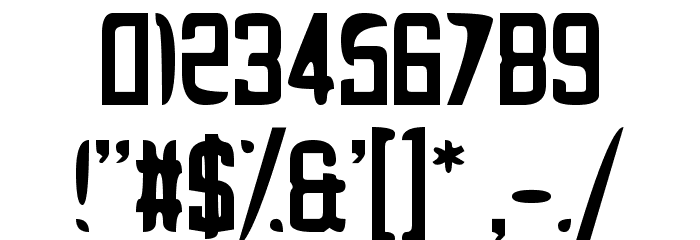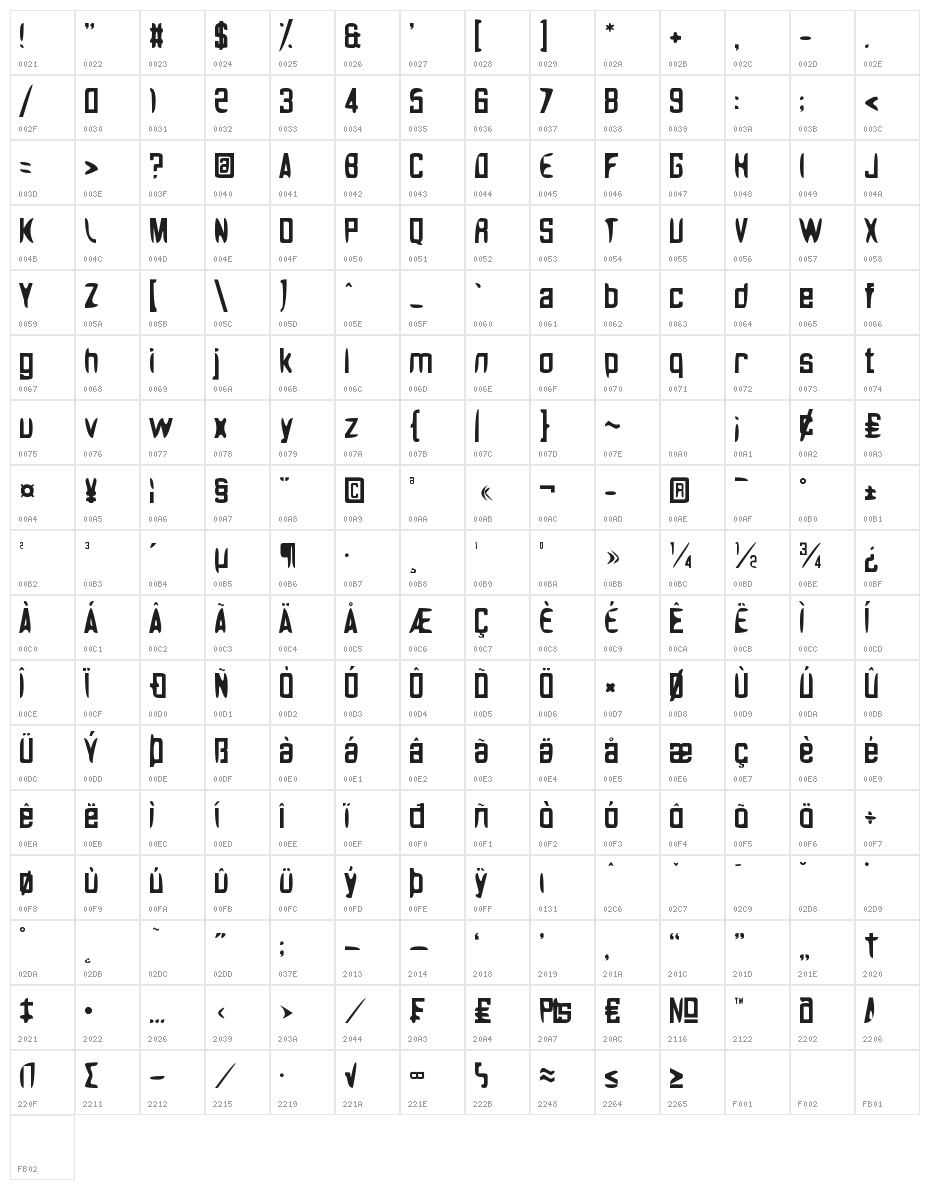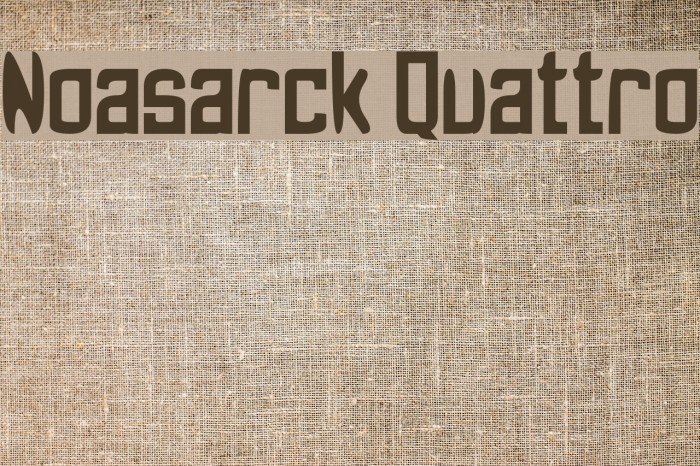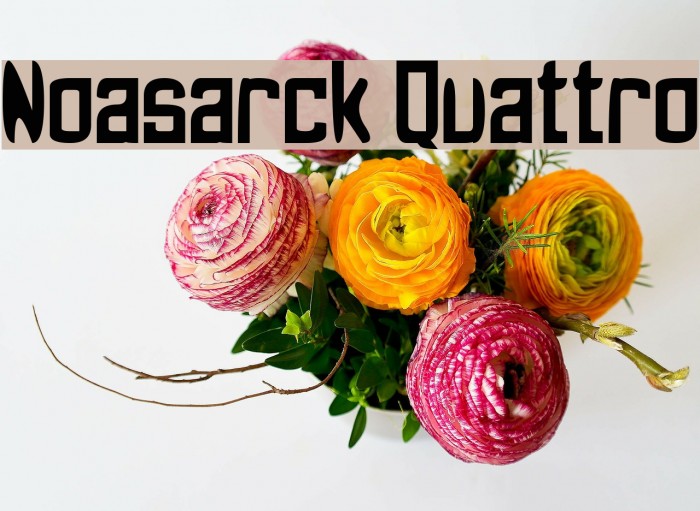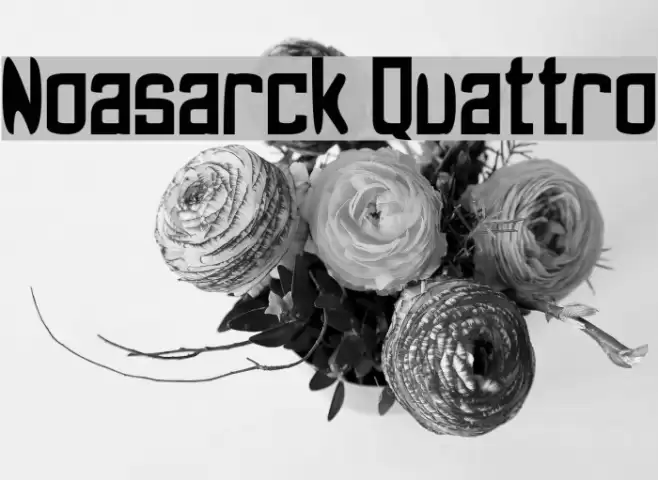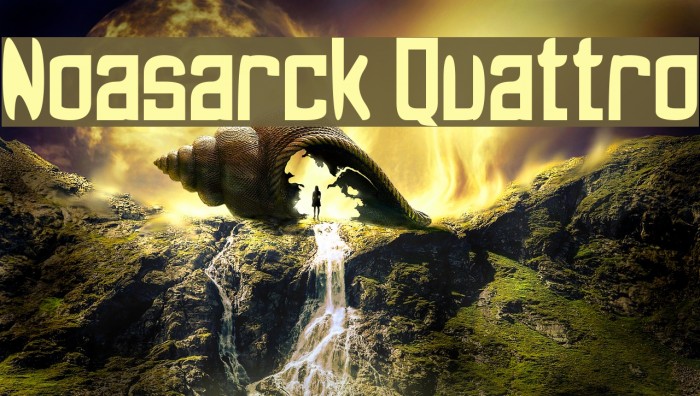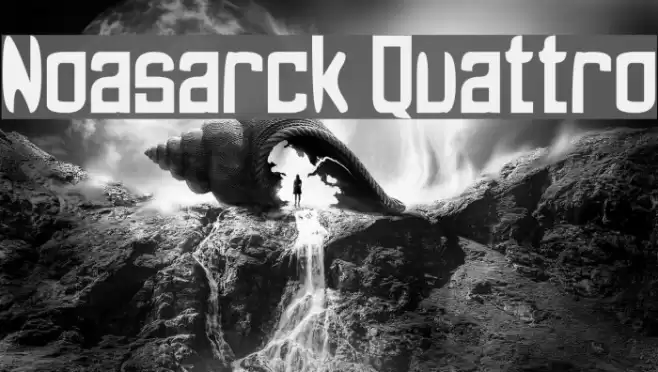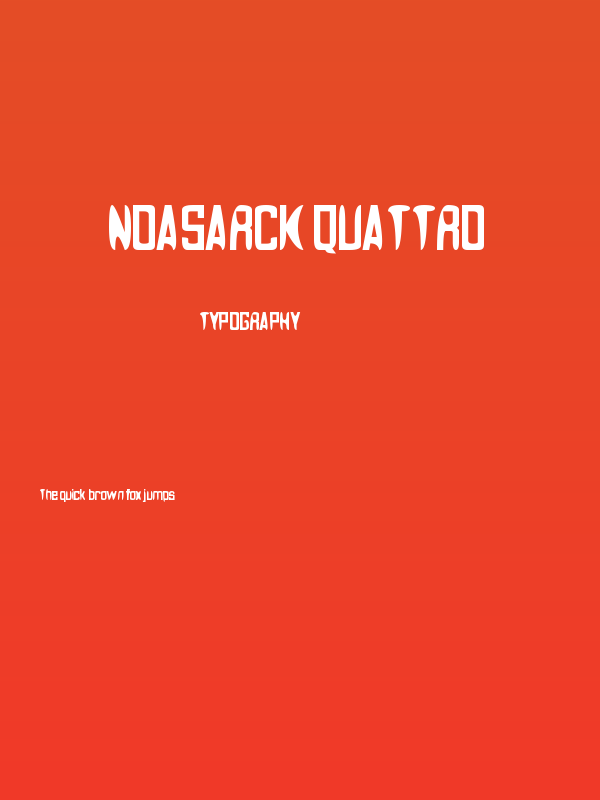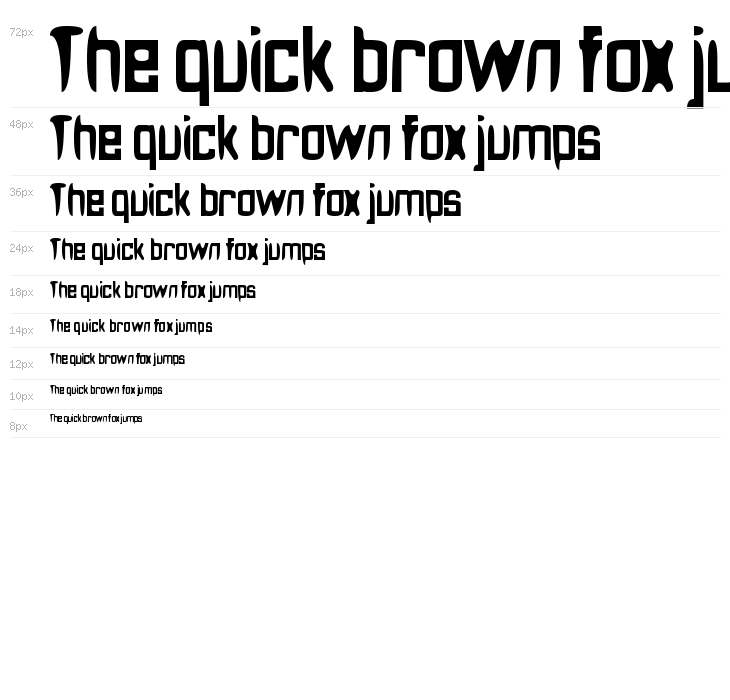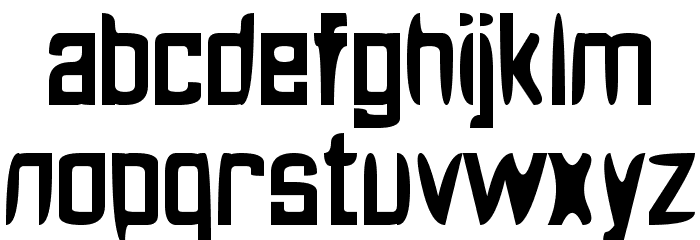
Noasarck Quattro Font
Noasarck Quattro Description
This font features a bold and dynamic style with a unique, angular design. The characters have a distinct geometric flair, with sharp edges and varying stroke widths that create a sense of movement and energy. The uppercase letters are particularly striking, with a futuristic and slightly aggressive appearance. The lowercase letters maintain the same angular aesthetic, providing consistency across the typeface. Numbers and special characters are designed to match the overall style, ensuring a cohesive look. This font is ideal for projects that require a modern and edgy feel.